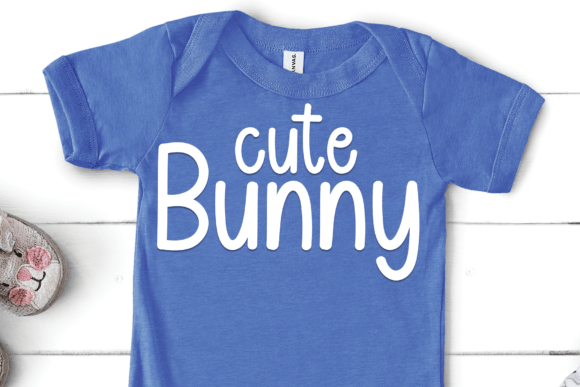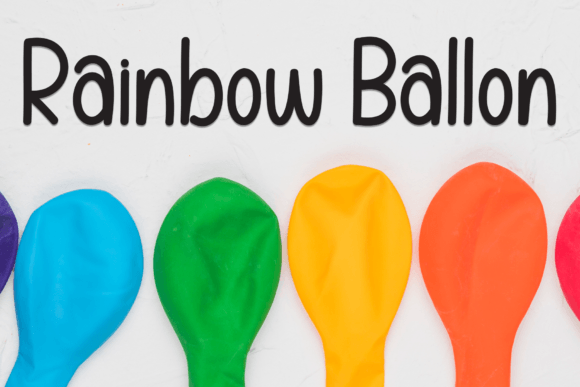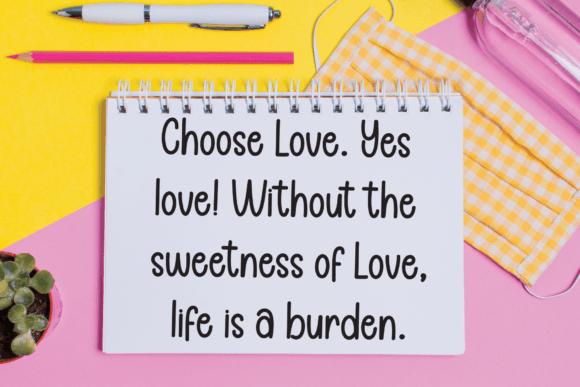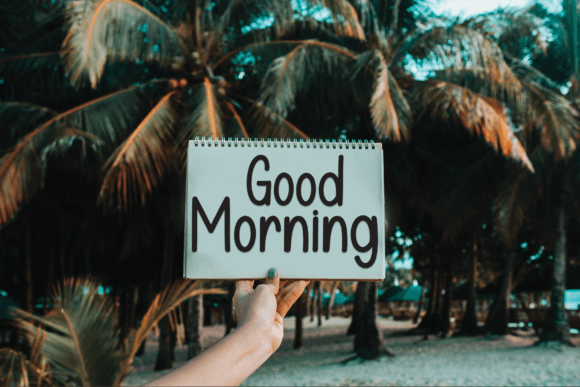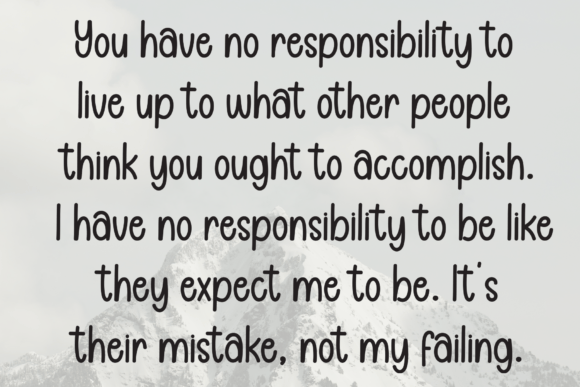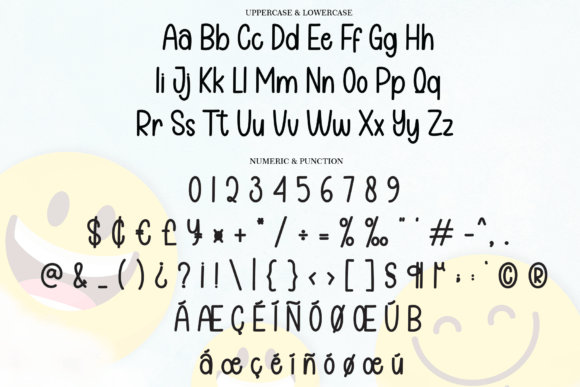
Have you ever found yourself staring at a blank page, trying to come up with the perfect words to express your feelings to a loved one? Maybe it’s a wedding invitation, a birthday card, or a heartfelt letter to a friend. Whatever it is, the right words are just the beginning – the right font can make all the difference.
Enter Be Smile Font, a sweet and friendly handwritten font that’s perfect for adding a personal touch to your designs. With its fresh and casual vibe, Be Smile Font is ideal for any project that needs a little extra love and care. Whether you’re a seasoned designer or just starting out, Be Smile Font is a valuable tool to have in your toolkit – and we’re excited to share all its secrets with you!
Key Features of Be Smile Font
- Font Family: Be Smile
- Unique Characteristics: Be Smile font features a unique, smile-based design with rounded edges and smooth curves, making it perfect for creating friendly and approachable content
Be Smile Font Review
I recently had the chance to work with the Be Smile Font, and I have to say, it’s a unique and intriguing choice. ✨ The font’s playful and friendly vibe immediately caught my attention. It’s perfect for creating a cheerful and approachable atmosphere in branding, advertising, or even digital products.
- ✨ Unique Personality: Be Smile Font has a distinct character that sets it apart from more common fonts. Its quirky feel makes it an excellent choice for creative projects.
- ✨ Highly Legible: Despite its playful nature, Be Smile Font is surprisingly easy to read, even at smaller font sizes.
- ✨ Large Character Set: The font includes a wide range of characters, including ligatures and swashes, which adds to its charm.
However, there are some limitations to consider. ⚠️ The font can be overwhelming if used extensively, and its playfulness might not be suitable for all audiences. Additionally, some characters may not be available in all languages, which could be a concern for global brands.
Overall, I think Be Smile Font is a great choice for designers who want to add some personality to their projects. While it may not be the best fit for every project, it’s certainly a fun and creative option to consider.
- Use Be Smile Font for titles and headings to add a touch of whimsy and playfulness to your design.
- Pair Be Smile Font with other fonts to create a unique and eye-catching design.
Be Smile Font is perfect for:
- Children’s books and educational materials.
What is the character set and language support for Be Smile Font?
The Be Smile Font supports a wide range of languages, including Latin, Cyrillic, Greek, and many other scripts. The font includes over 2,000 glyphs, covering a broad character set that includes Latin, Cyrillic, Greek, and many other scripts. It also includes a comprehensive set of OpenType features, including ligatures, swashes, and ornaments.